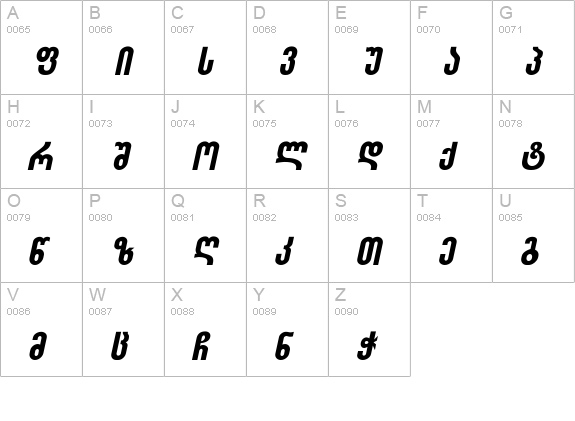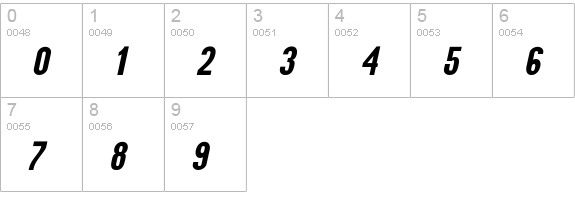
Sakatrvelo-ITV Italic Font Details
Sakatrvelo-ITV Italic is a distinctive, italic variant in the Sakatrvelo typeface family \xE2\x80\x94 well suited to design and typography projects.
Introducing Sakatrvelo-ITV Italic, a stunning font that effortlessly combines elegance and modernity. With its sleek and sophisticated design, this font is perfect for adding a touch of sophistication to any project. The italicized letterforms exude a sense of fluidity and grace, making it ideal for a wide range of applications. Sakatrvelo-ITV Italic is not only visually appealing but also exceptionally versatile. It can be used for various purposes, including branding, advertising, logo design, packaging, and much more. Its unique style instantly captures attention and leaves a lasting impression on viewers. One of the most notable aspects of Sakatrvelo-ITV Italic is that it is freely available to download at FontsMarket.com. This means that you can easily access and use this remarkable font without any limitations. Whether you are a professional designer or a creative enthusiast, the availability of this font for free ensures that you can explore its endless possibilities without any financial constraints. The attention to detail in Sakatrvelo-ITV Italic is truly remarkable. Each letter is meticulously crafted, resulting in a harmonious and visually pleasing composition. The slight italics add a sense of movement and dynamism, creating a captivating visual experience. Its legibility remains intact even at smaller sizes, making it a practical choice for both print and digital designs. Enhance your projects with the effortless elegance of Sakatrvelo-ITV Italic. Its combination of sophistication, versatility, and free availability makes it a must-have addition to any designer's toolkit. Download this font from FontsMarket.com today and elevate your designs to new heights.